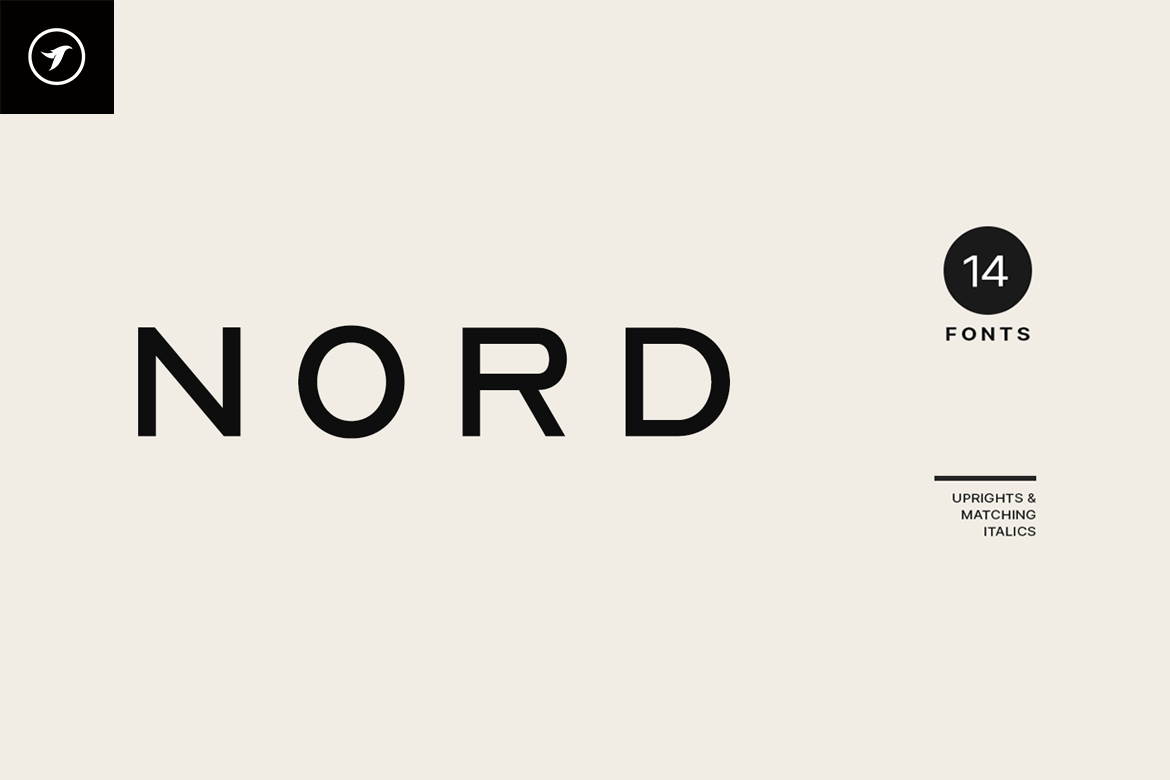
NORD - Minimal Display / Headline / Logo Typeface
NORD Font is perfect for Scandinavian brand identity, minimalist design projects, Arctic expedition materials, Nordic tech companies, sustainable product branding, winter sports equipment, modern architectural signage, clean lifestyle brands, environmental organizations, and contemporary outdoor gear packaging.
NORD Font is exciting because it captures the pristine clarity and rugged elegance of the Nordic landscape, creating a typeface that embodies the strength, purity, and natural beauty of the Arctic regions. This font brings crisp sophistication and elemental power to any project, making it ideal for brands that want to convey authenticity, environmental consciousness, and Nordic heritage. Its bold yet refined character reflects the harsh beauty and enduring strength of northern territories.
NORD Font family includes light, regular, medium, bold, and black weights, along with condensed variations and Arctic-inspired symbols, providing designers with comprehensive tools for creating authentic Nordic typography and environmentally conscious brand systems.
This powerful typeface combines Nordic design traditions with contemporary environmental aesthetics, making NORD Font Free Download an exceptional choice for projects celebrating natural strength and sustainable values. The font's precisely engineered letterforms feature clean geometric structure inspired by ice formations and mountain peaks, creating typography that feels both modern and timeless.
Whether you're designing outdoor adventure branding, sustainable technology companies, or Arctic research materials, NORD Font delivers unmatched authenticity and environmental credibility. The font excels in both extreme outdoor applications and sophisticated corporate environments where Nordic values and environmental responsibility are core principles.
Environmental professionals choose NORD Font for its ability to instantly communicate natural strength and Nordic heritage while maintaining excellent readability in challenging conditions. The font's elemental character makes it particularly effective for outdoor brands, environmental organizations, and companies emphasizing sustainability.
Each character reflects the pristine clarity and enduring strength of Nordic landscapes, featuring clean lines and robust construction that withstand the test of time like ancient glaciers and mountain ranges.